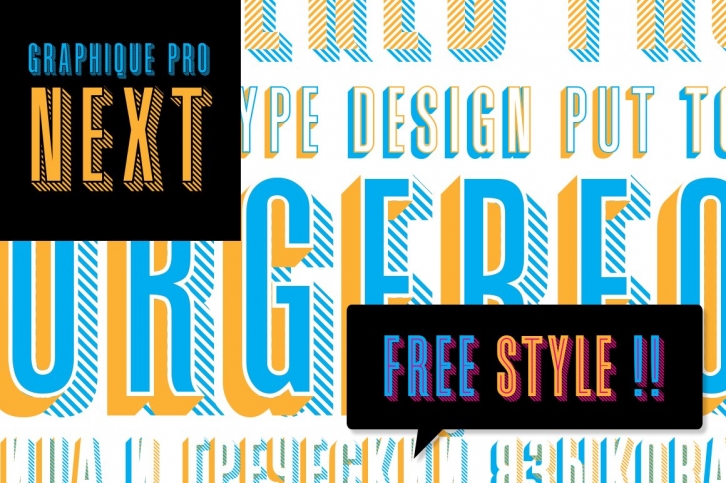
The original Graphique Pro was designed by the famous Swiss designer Hermann Eidenbenz in 1945 and included one outline shadow style. His idea of a very narrow, very economic headline font became increasingly more popular over the last decades and since the recent trend of layered fonts his idea is more up-to-date than ever. profonts studio now took the idea of the Graphique Pro to its next level: Graphique Pro Next. This layered type family consists of 8 styles (separate offer for just 14$) which can be combined in plenty of ways to create unique designs. The fonts thereby preserve the outstanding and timeless drawings of the original Graphique Pro font and will add an aesthetic and fresh look to every project. Please have a look at the Graphique Pro Next Type Specimen for more details about the language support and font layer combinations.